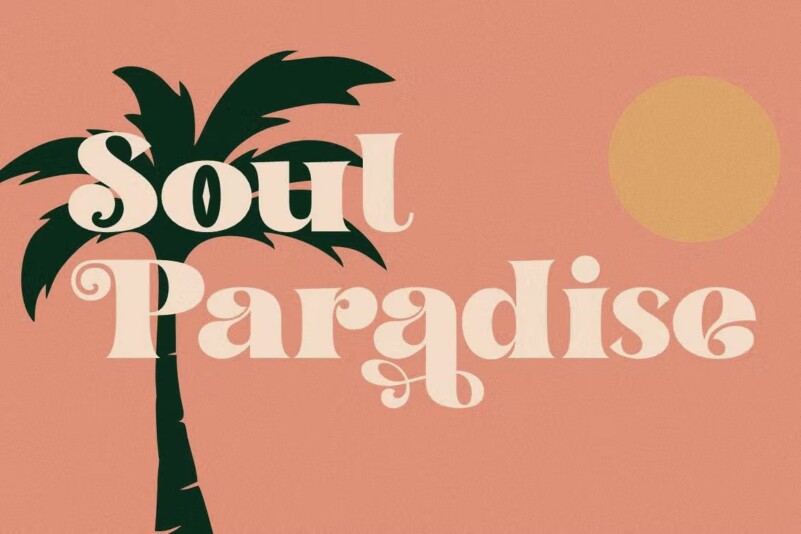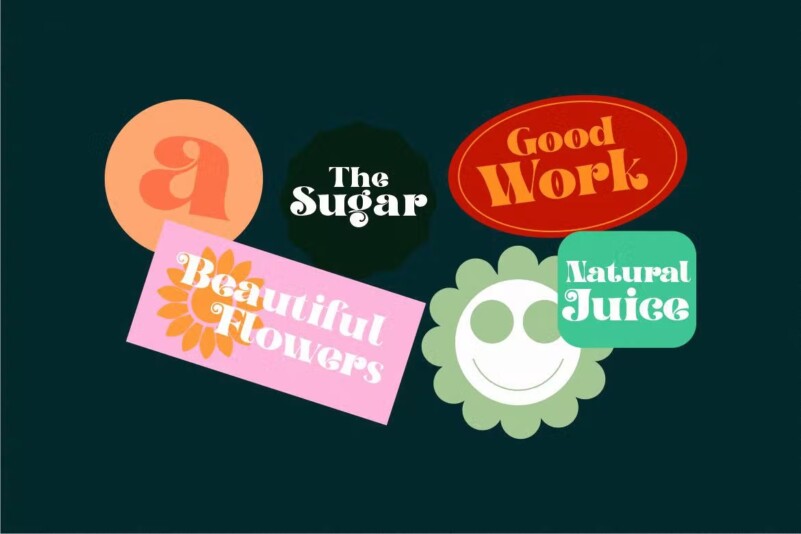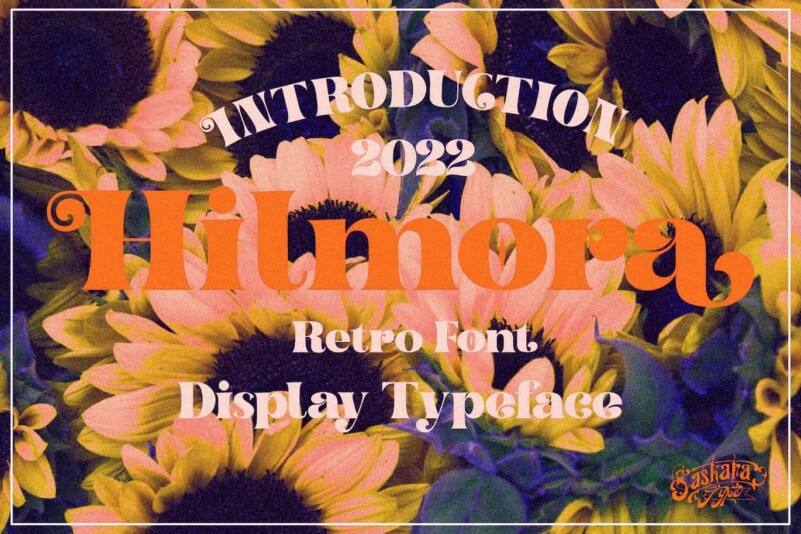
Hilmora Font
Hilmora is a semi-retro vintage font with a modern and trendy style. This font is perfect for posters, stickers, t-shirts, labels, cards, illustrations, web packaging, etc.